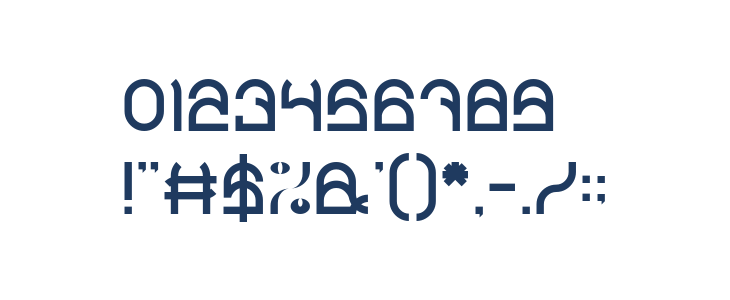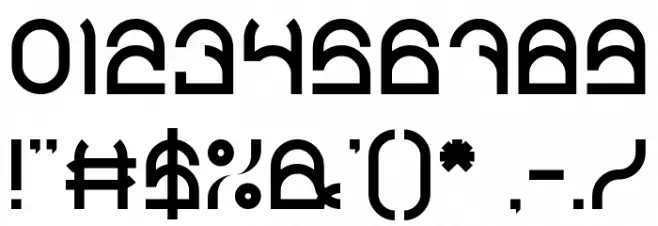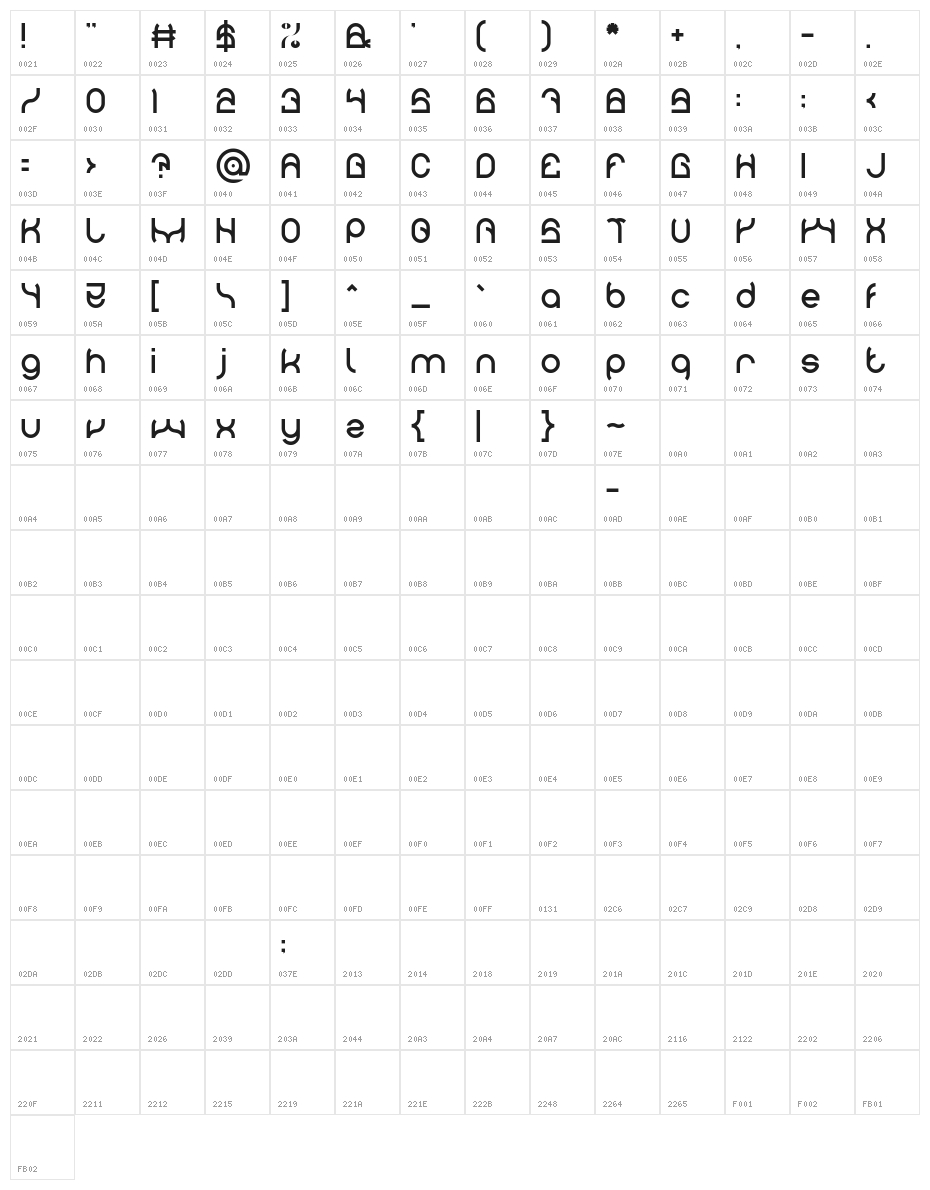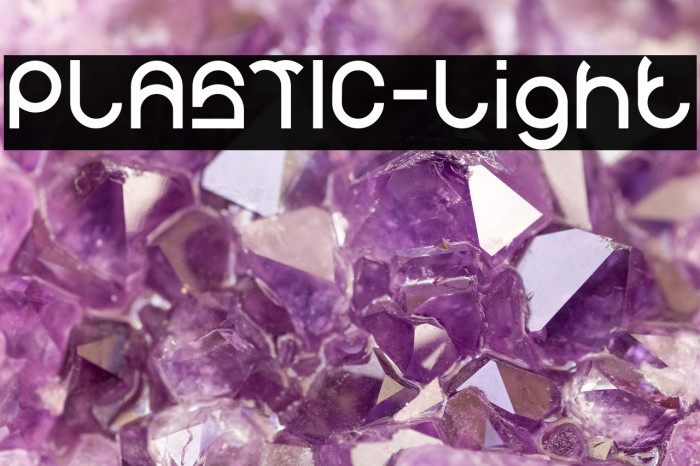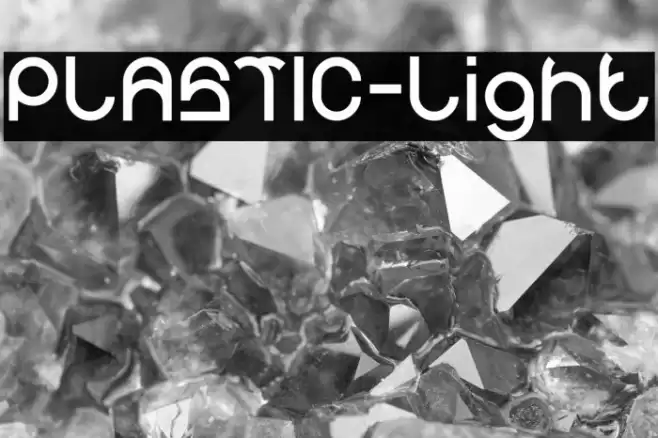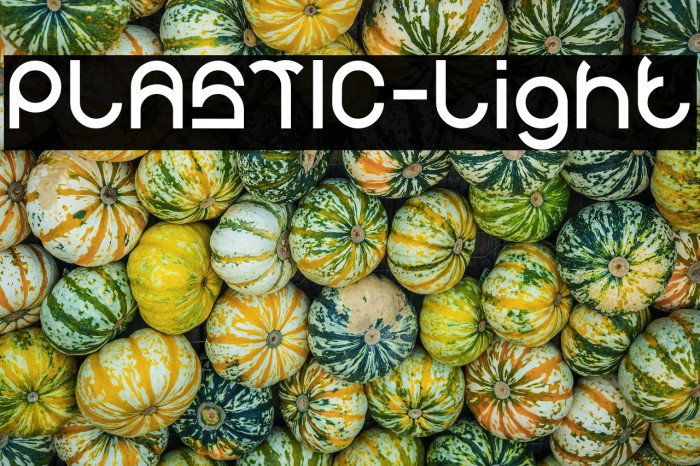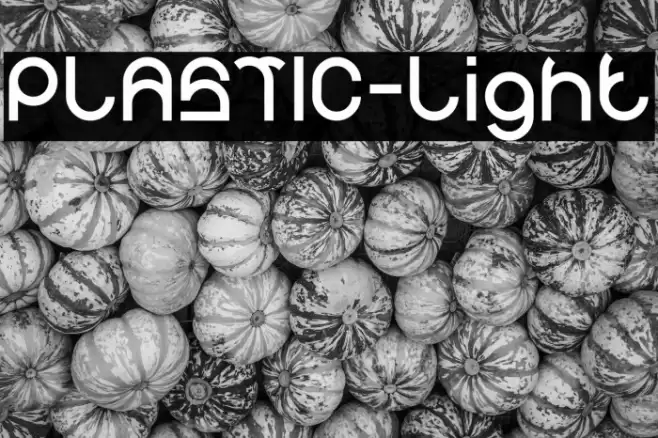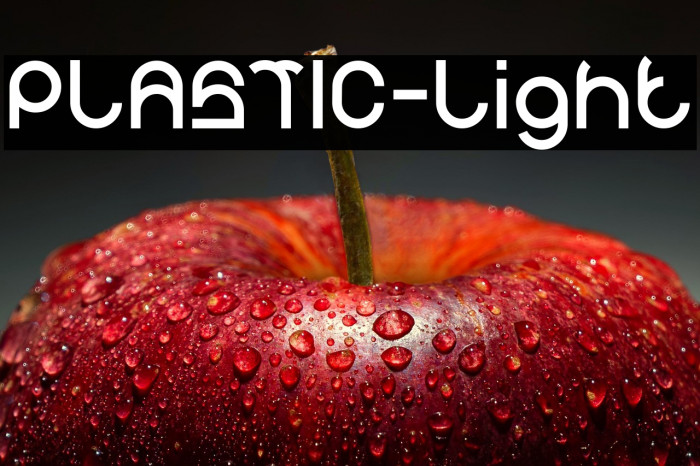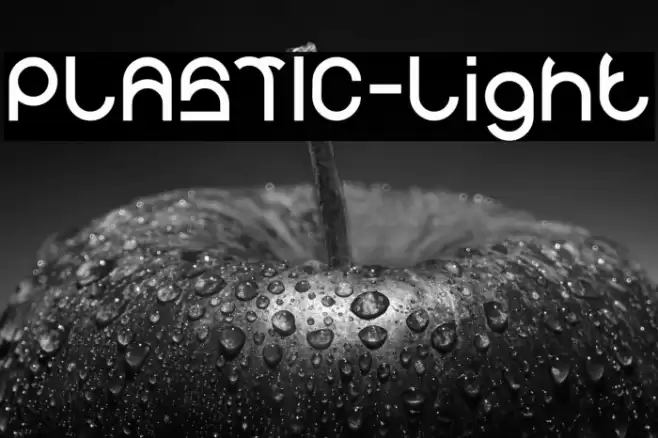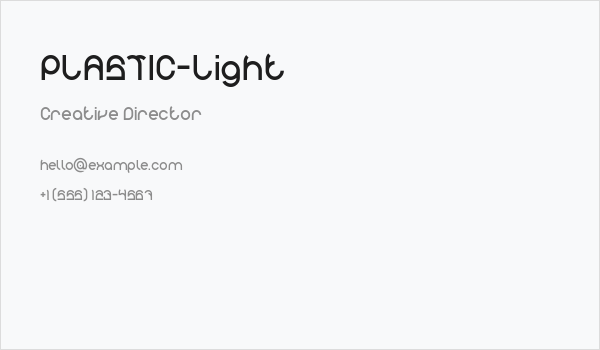
PLASTIC-Light Font
PLASTIC-Light Description
This font features a futuristic and geometric design, characterized by its unique and bold letterforms. The uppercase letters exhibit a distinct angularity with rounded edges, creating a modern and sleek appearance. The lowercase letters maintain a consistent style, with smooth curves and a slightly condensed form. The numerals are stylized to match the overall aesthetic, with a focus on symmetry and balance. Special characters are creatively designed, adding to the font's distinctive look. This typeface is ideal for projects that require a contemporary and innovative touch.
PLASTIC-LIGHT UPPERCASE
PLASTIC-LIGHT LOWERCASE
PLASTIC-LIGHT OTHER CHARS